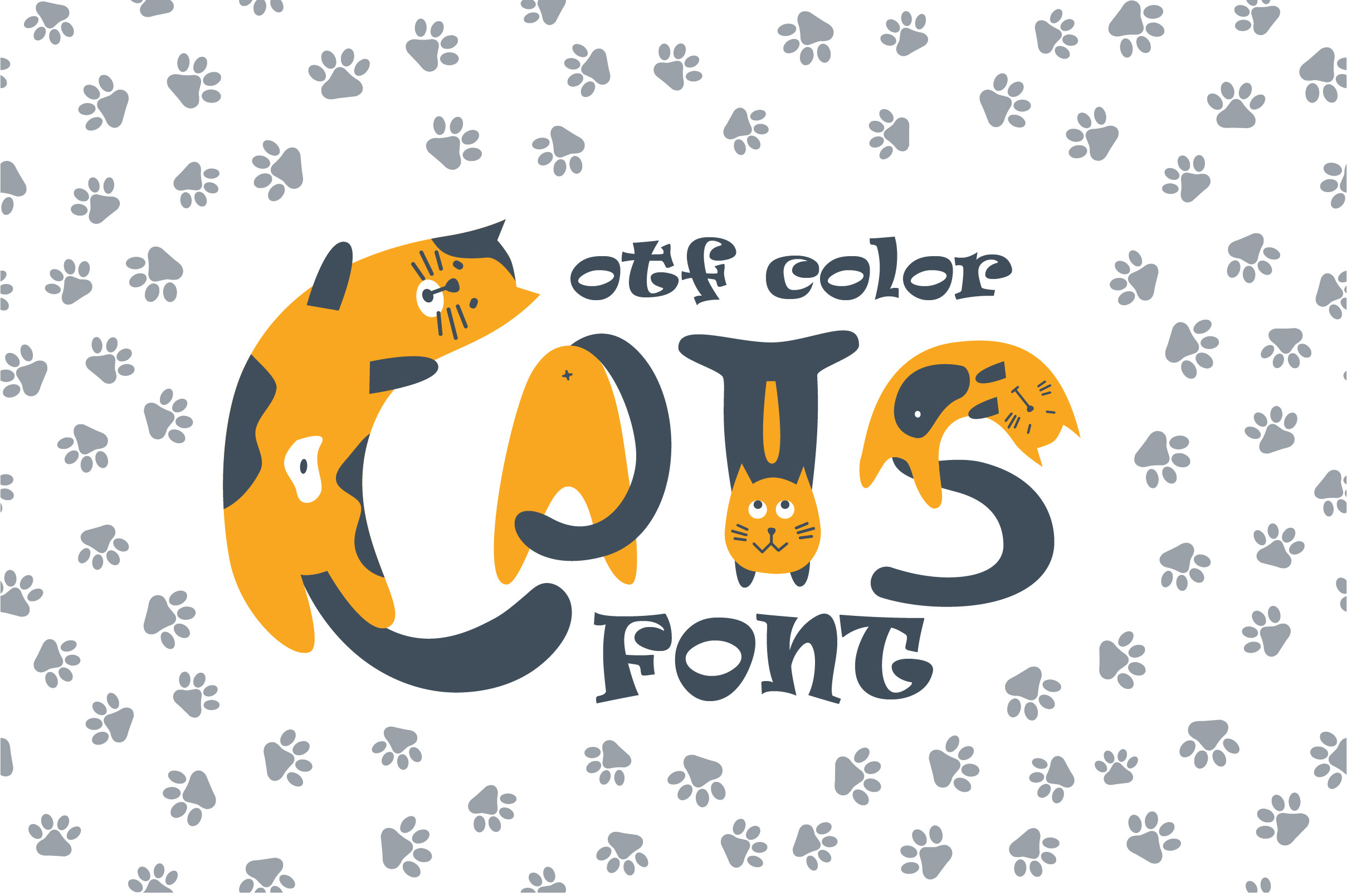
Cats cute OTF color font
Cats OTF color font. Creative set of characters, kittens pictured in a variety of poses. You can use this font for design logos, quotes prints on t-shirts and other.
OpenType-SVG Font was designed with Fontself Maker in Illustrator CC. Contains only uppercase letters and digits.